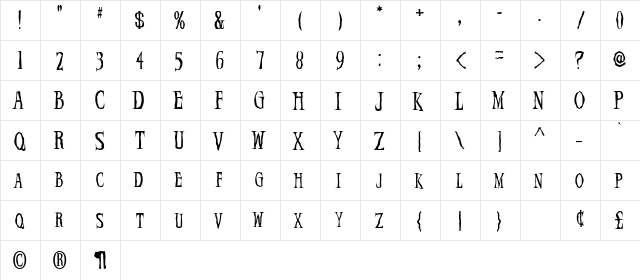
Demon Night Font Preview
Demon Night
Design Context for Demon Typeface
Demon takes a measured approach to typography — its balanced proportions and neutral character make it a reliable workhorse for both digital and print work.